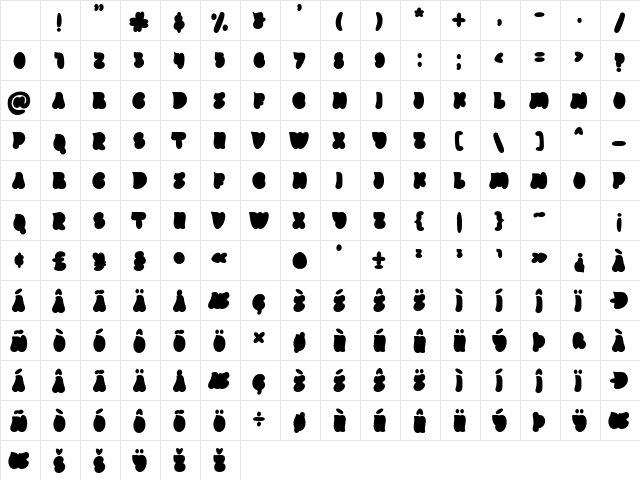
Complete Outline Mirage Fill Regular glyph index. Displaying only characters natively supported by Outline Mirage Fill Regular font.
Outline Mirage Fill is built around its visual character rather than neutral utility - its distinctive forms are designed to make an impression at display sizes.
Font Pairing: Pair with a clean neutral sans-serif for body copy to let Outline Mirage Fill's character lead without overwhelming the composition.
Pro Tip: Use Outline Mirage Fill exclusively at display sizes - it was designed to be seen, not read at length. Let a neutral companion handle body copy.